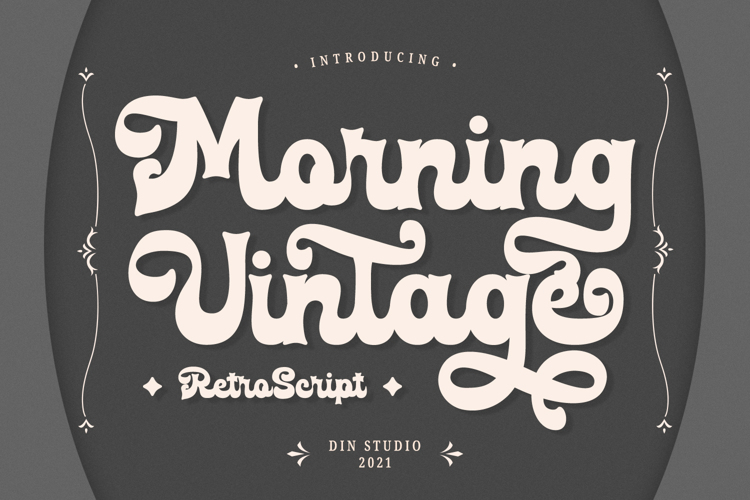
Morning Vintage Font
Product Description :
Morning Vintage, a Script Font, is a handcrafted font inspired by designs and illustrations from urban styles, an excellent choice to add the right amount of street and retro vibes. It is perfect for social media branding projects, fashion designs, printed quotes, packaging, and a stylish text overlaying any background images.
Features include:
• Ligatures
• Stylistic Sets
• Swashes
• Multilingual Supports
• PUA Encoded
• Numerals and Punctuations